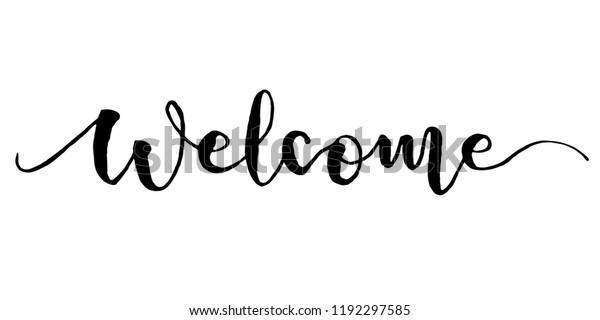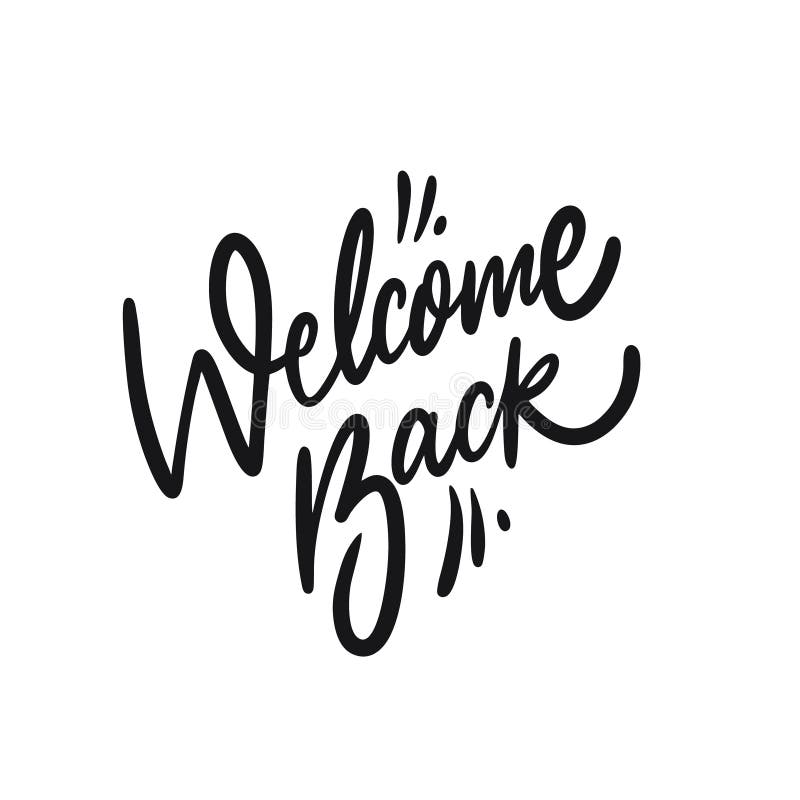
This font is Demo Font free for PERSONAL USE only. This font was particularly crafted for those who need a beautiful and refreshing look to their designs.
It usually involves a nibbed pen or brush. Modern calligraphy typefaces differ from traditional calligraphy in that they do not adhere to specific lettering rules. Browse worry free commercial use fonts web fonts and app fonts tagged Modern-calligraphy at Fontspring.
Chinese Jpn Arabic Mexican Roman Greek Russian Various. The main sub-styles are traditional calligraphy and modern. Wellcome Calligraphy Font.
Free Anayu Calligraphy Font is an elegant whimsical and uniquely shaped lettered handwritten font that look simple but cute font that suits to type on any design. This demo font is for PERSONAL USE ONLY. The Everything Calligraphy font has been downloaded 3494 times.
Calligraphy is an ancient writing technique using flat edged pens to create artistic lettering using thick and thin lines depending on the direction of the stroke. Calligraphy fonts are widely used in wedding event invitations original logo design religious art films TV etc. Calligraphy is an artistic writing style where the pressure is varied to create thick and thin lines all in a single stroke.
But any donation are very appreciated. This font was designed by handwriting and it has a modern andunique forms of calligraphy the writing style is very natural. Submit a font Tools.
Wellcome Valentine is a versatile duo font handwritten and sans serif. This version is a Personal to Use Only. It contains uppercase lowercase and number.
Cartoon Comic Groovy Old School Curly Western Eroded Distorted Destroy Horror. This style can end up looking very similar to hand-lettered fonts but the difference is that calligraphy is written and not drawn. According to the designer the font is an ode to the late 19 th century American calligrapher Louis Madarasz known as the most skillful penman the world has ever known.
Andyou Calligraphy Font is a lovely and delicate script font that exudes elegance and class. Welcome is a sweet and charming handwritten font full of authenticity. The height of calligraphy was reached in the middle age where monks developed the narrow writing style called gothic allowing more words to fit on a single line as paper was expensive at the time.
It has beautiful and well balanced characters and as a result it matches a wide pool of designs. Ad by Graphix Line Studio. Andyou is PUA encoded which means you can access all of the glyphs and swashes with ease.